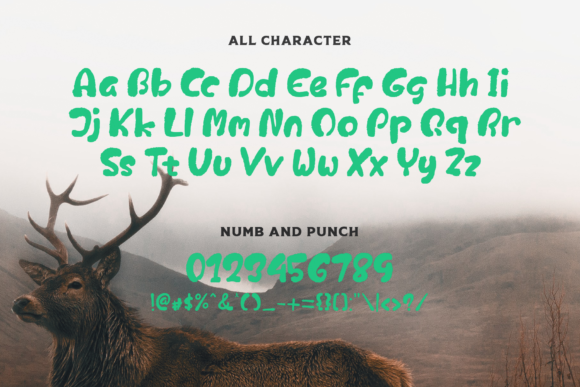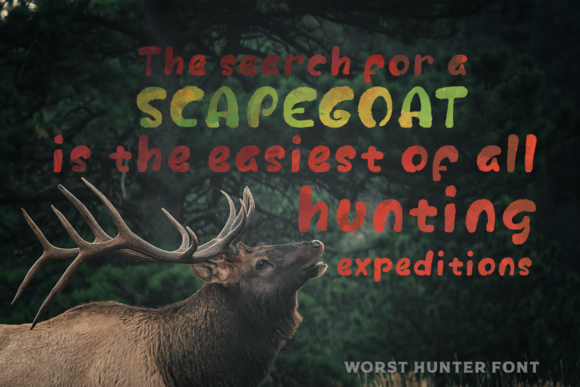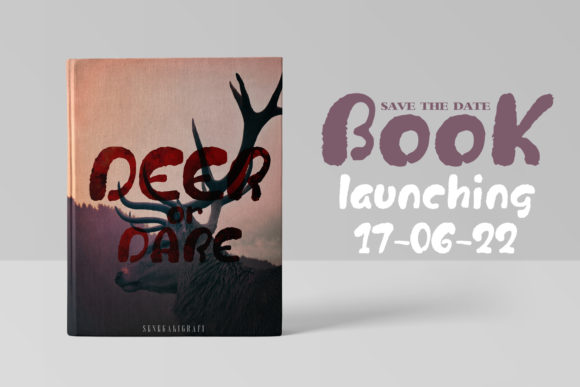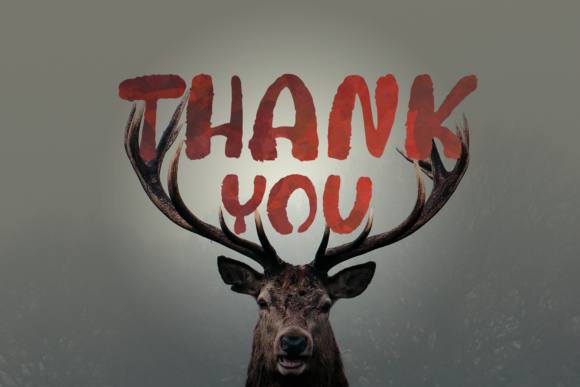
About Worst Hunter Font
Introducing “Worst Hunter,” a font with bold and hard strokes, featuring a signature style that immediately captivates with a unique sensation. Elevate your creative projects to the highest level with this font, as it brings a special and distinctive typographical design to your branding, food products, cafe items, restaurant offerings, labels, clothing, movie titles, album covers, logos, and much more.
“Worst Hunter” is designed to add a touch of exclusivity and character to your projects. Its signature style sets it apart, providing a visual impact that is both special and touching. This font is not just a typographical tool; it’s a key element that can transform your designs into standout pieces, giving your brand or project a memorable and unique identity.
The versatility of “Worst Hunter” makes it suitable for a broad range of applications. Whether you’re working on branding for a cafe, creating labels for food products, or designing an album cover, this font adapts effortlessly to various design needs. Its modern and universal appeal ensures that it stays relevant across different contexts.
Unleash the endless possibilities that “Worst Hunter” offers. It’s not just a font; it’s a creative asset that opens doors to a world of design options. Let it be the key to expressing the unique essence of your projects and making a lasting impression in the minds of your audience.